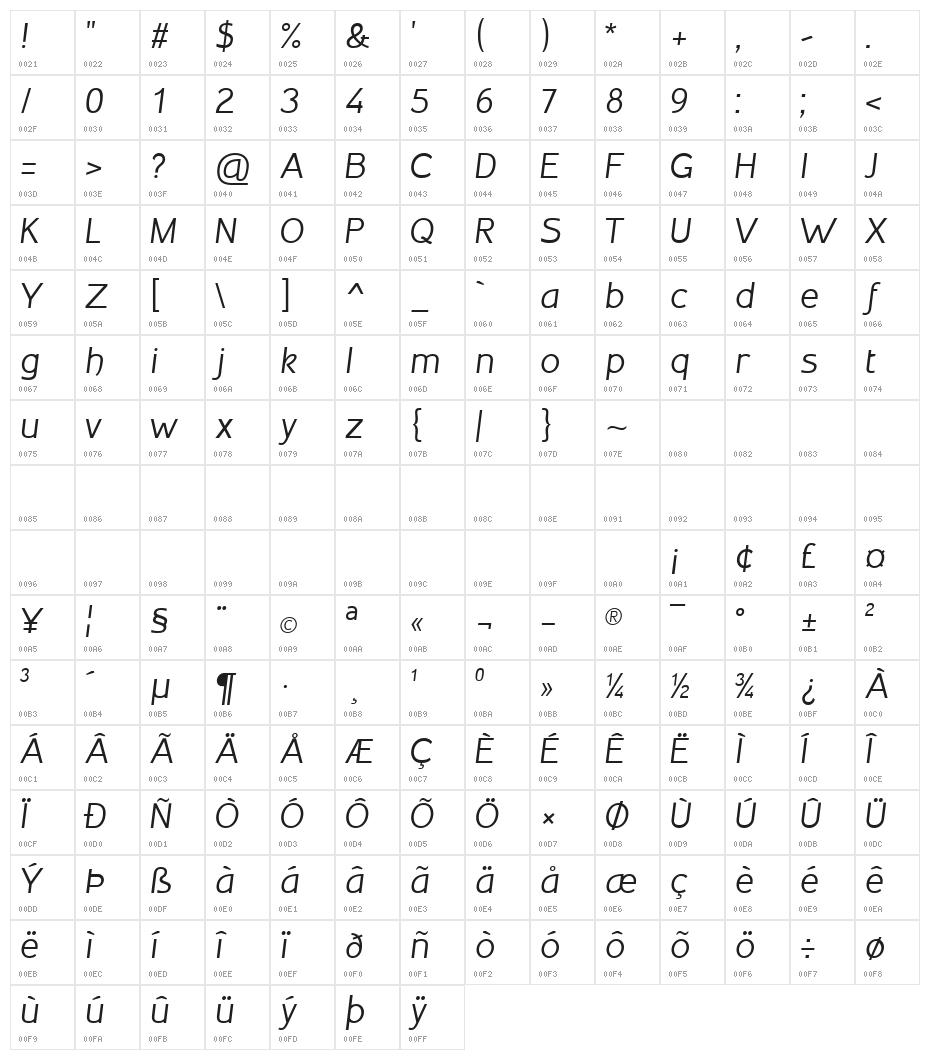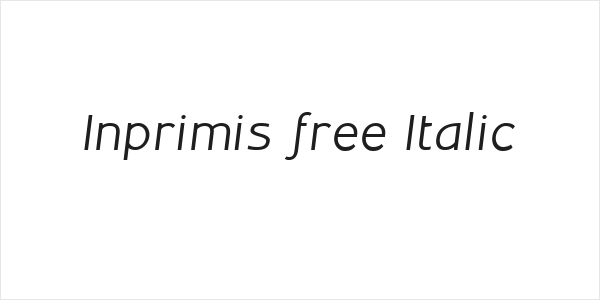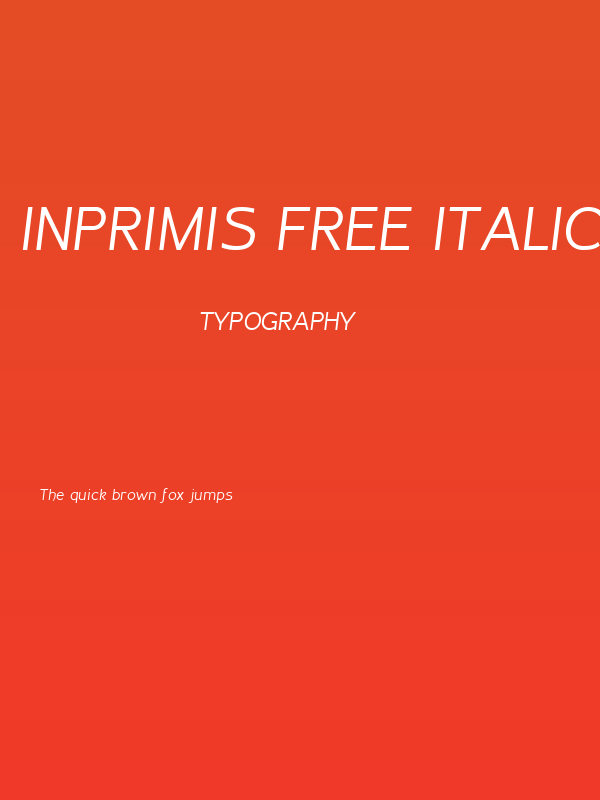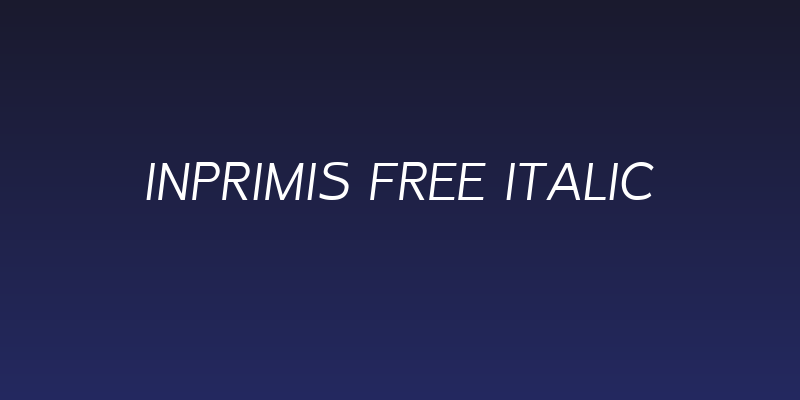
Inprimis free Italic Font
Inprimis free Italic Description
This font features a sleek and modern design with a slight italic slant, giving it a dynamic and forward-moving appearance. The characters are clean and well-proportioned, with a consistent stroke width that maintains readability across different sizes. The uppercase letters are bold and commanding, while the lowercase letters are more subdued, providing a nice balance. The numerals are clear and distinct, making them suitable for both text and numerical data. Special characters are well-integrated, ensuring versatility in various applications. The overall style is contemporary, making it suitable for a wide range of design projects.
| Proposed Projects | Ideal for branding, advertising, digital content, and editorial design. |